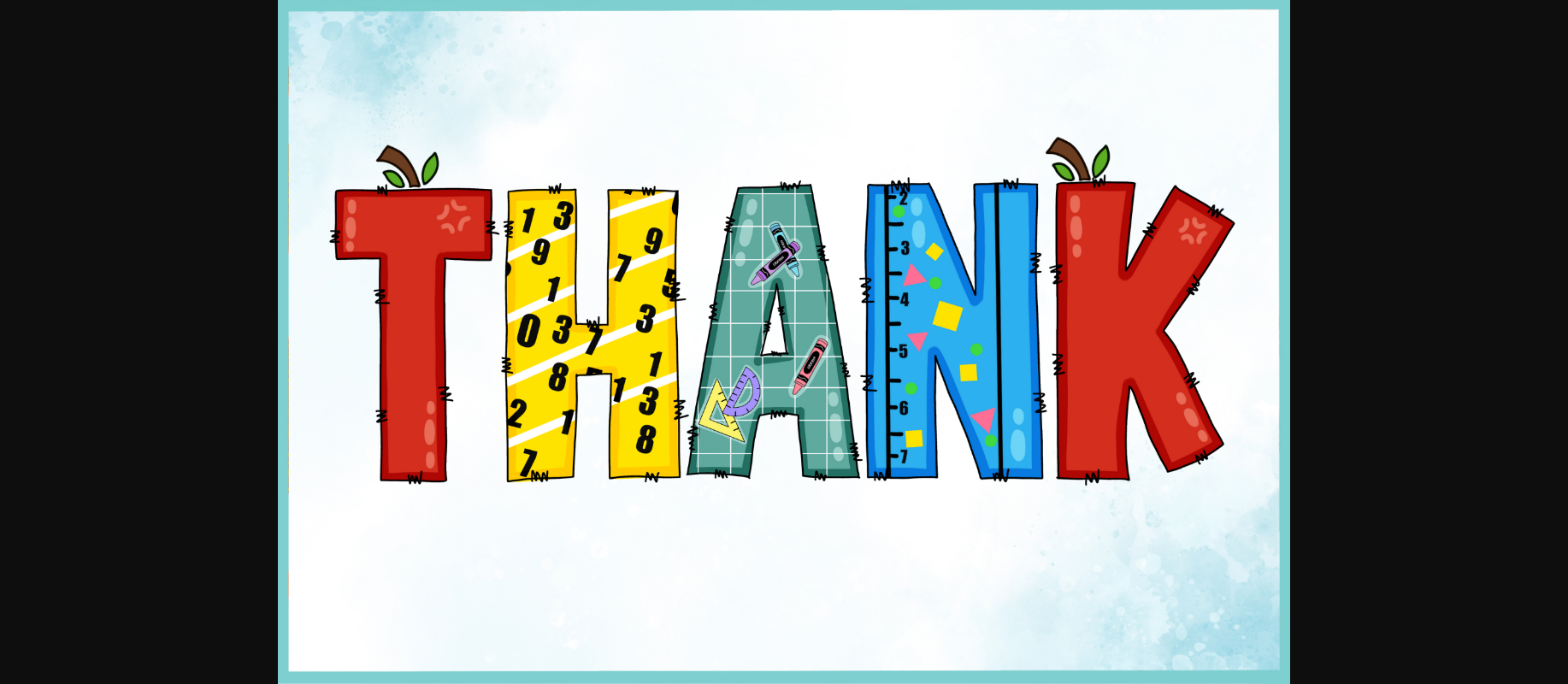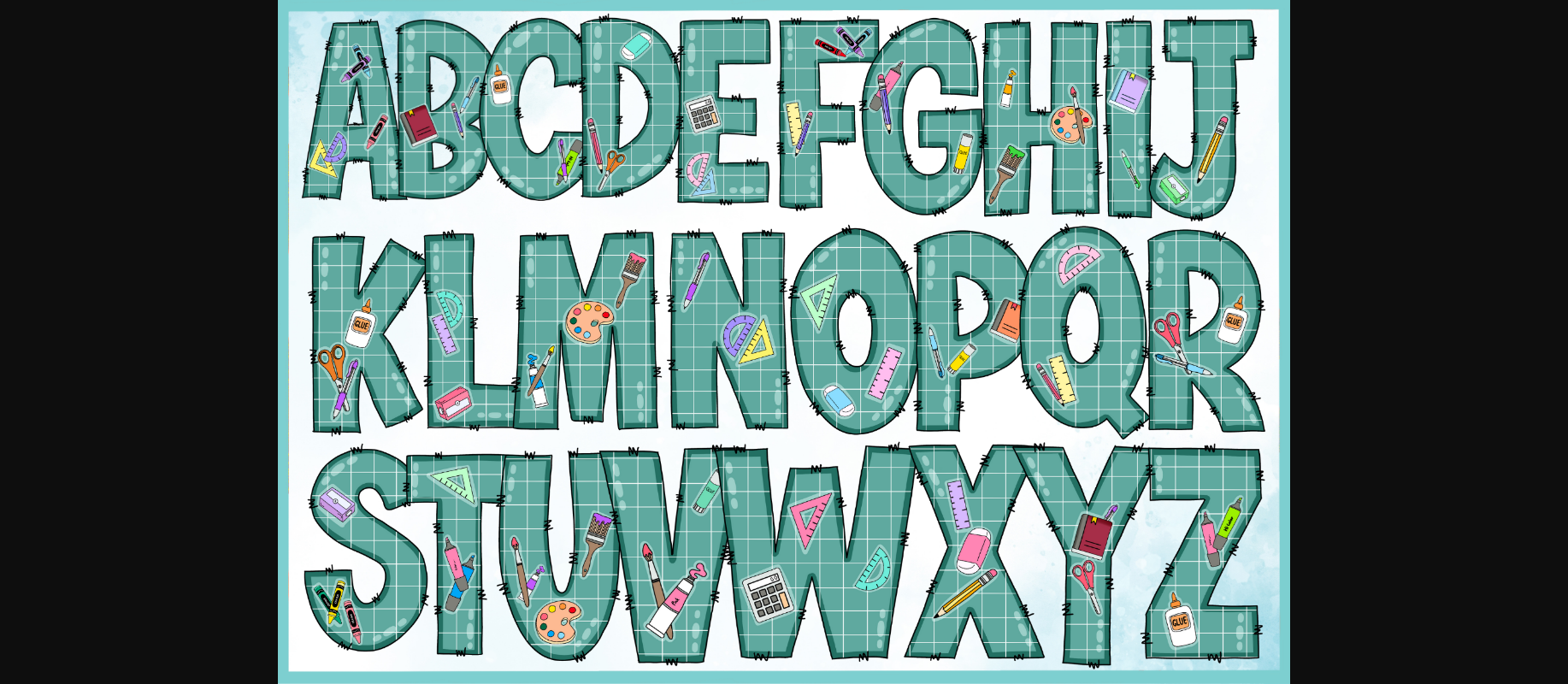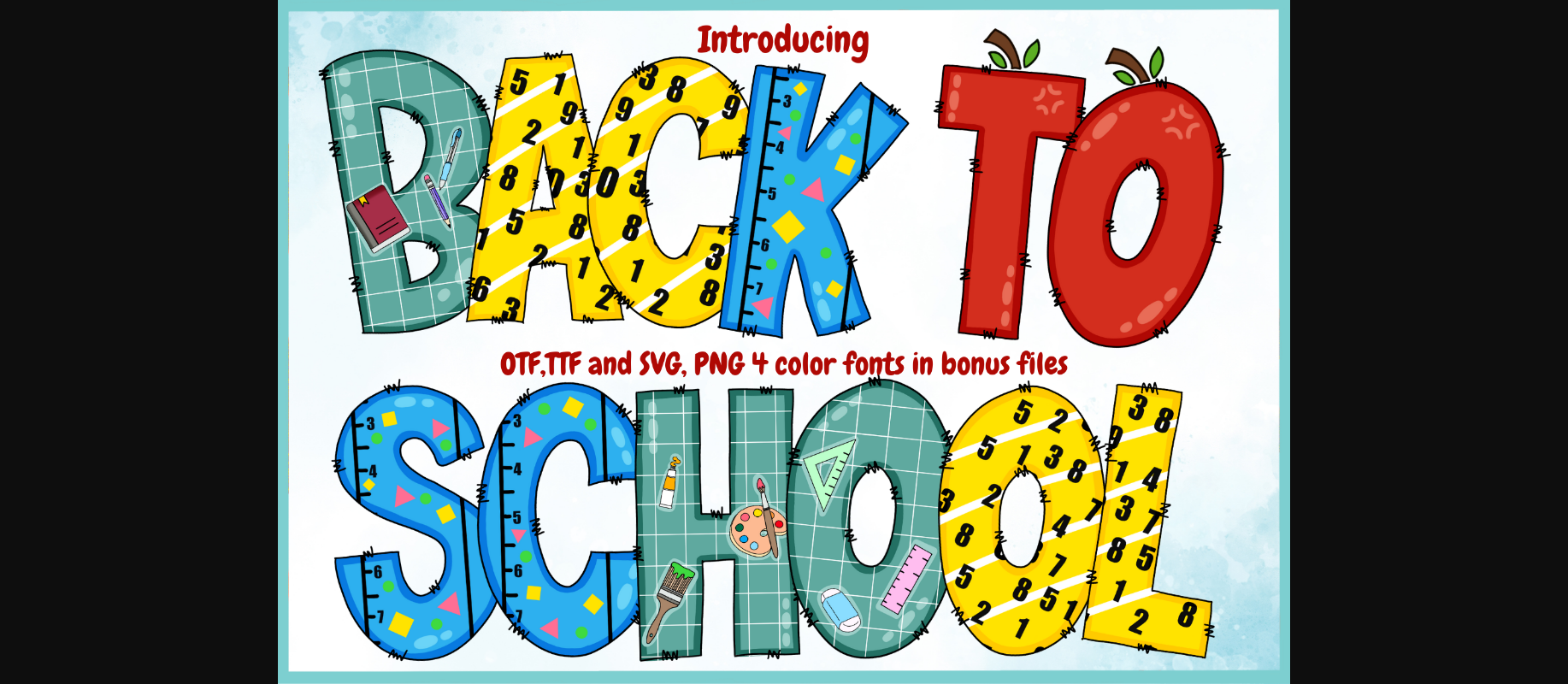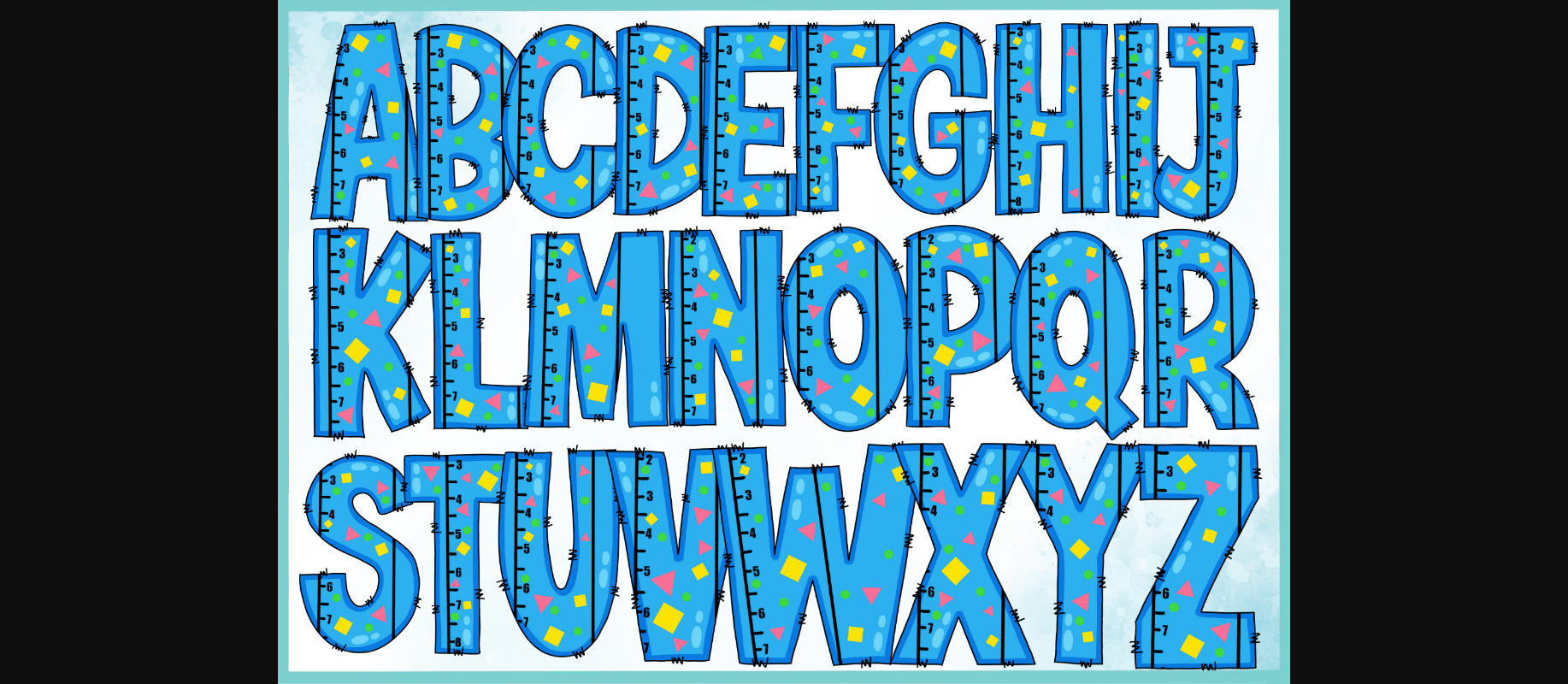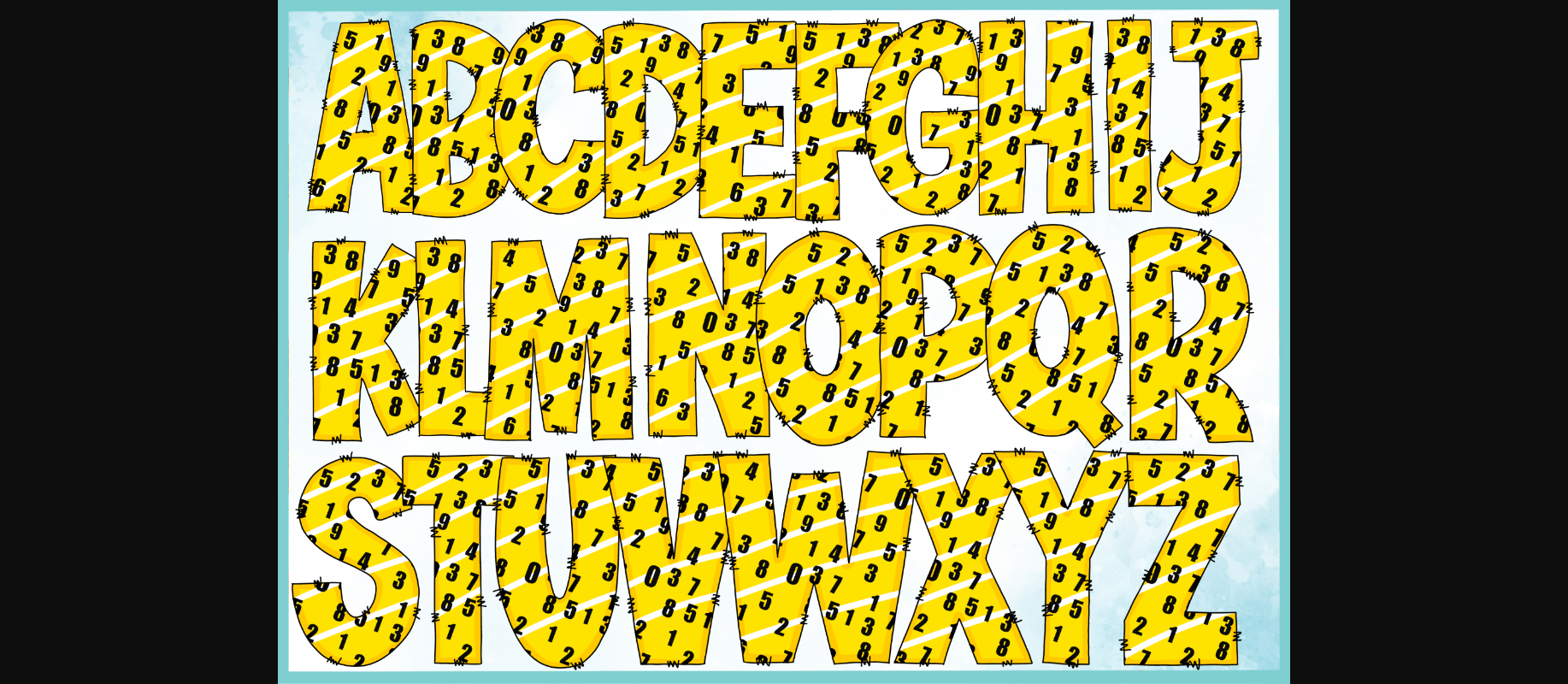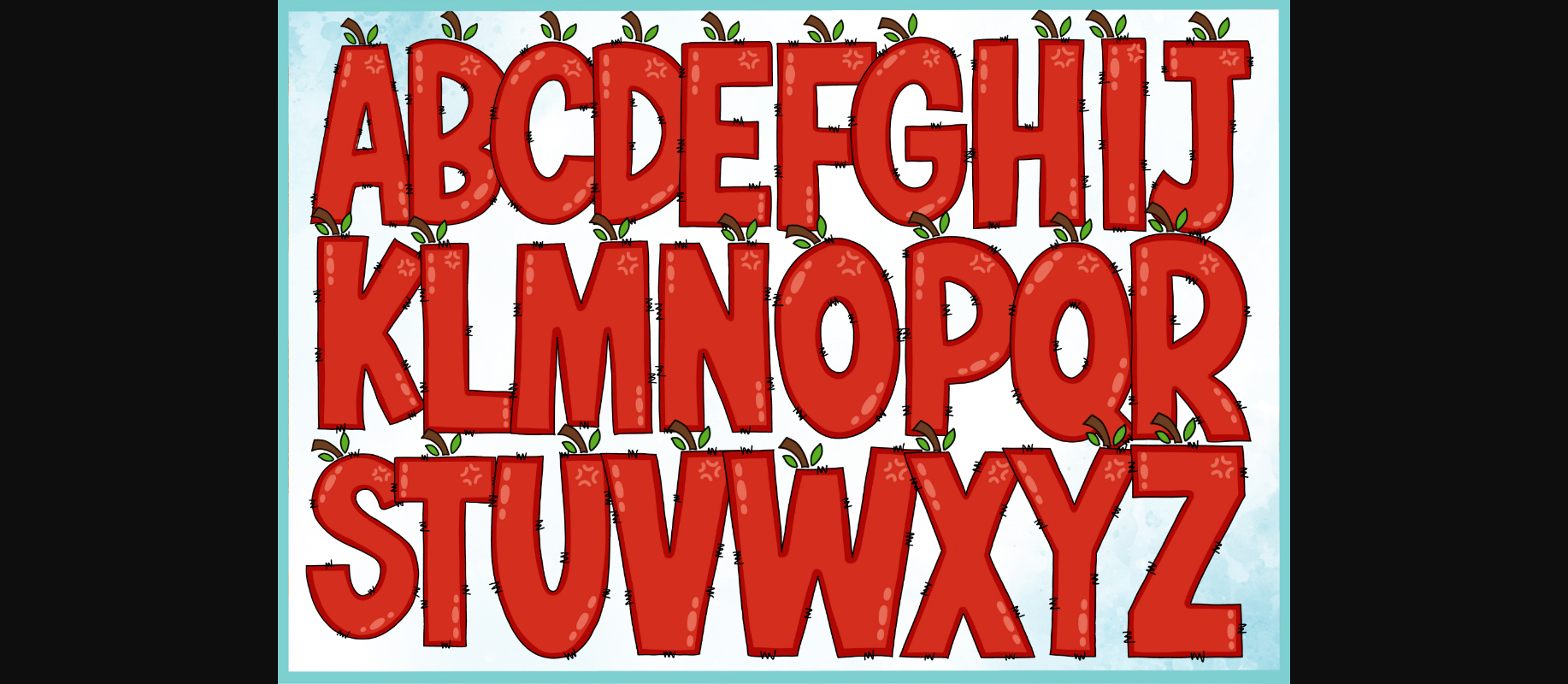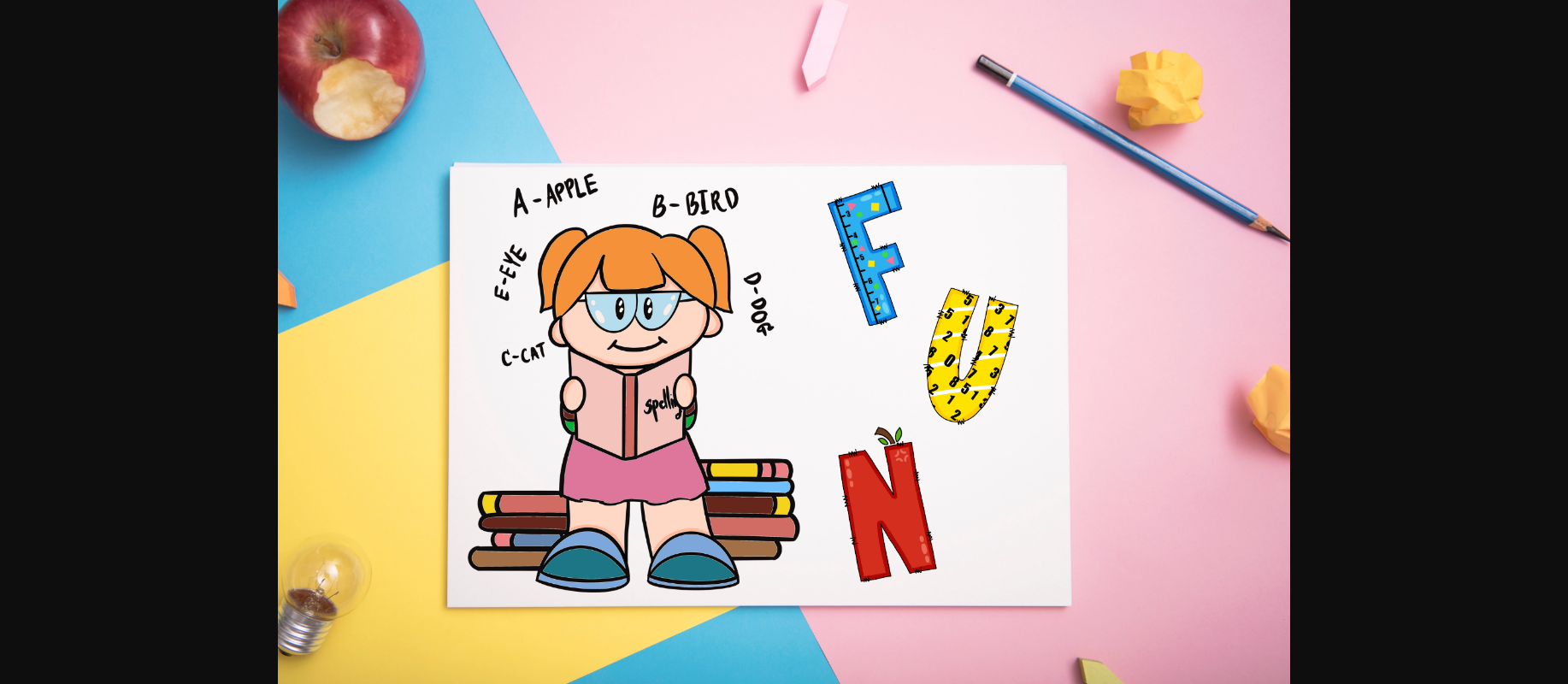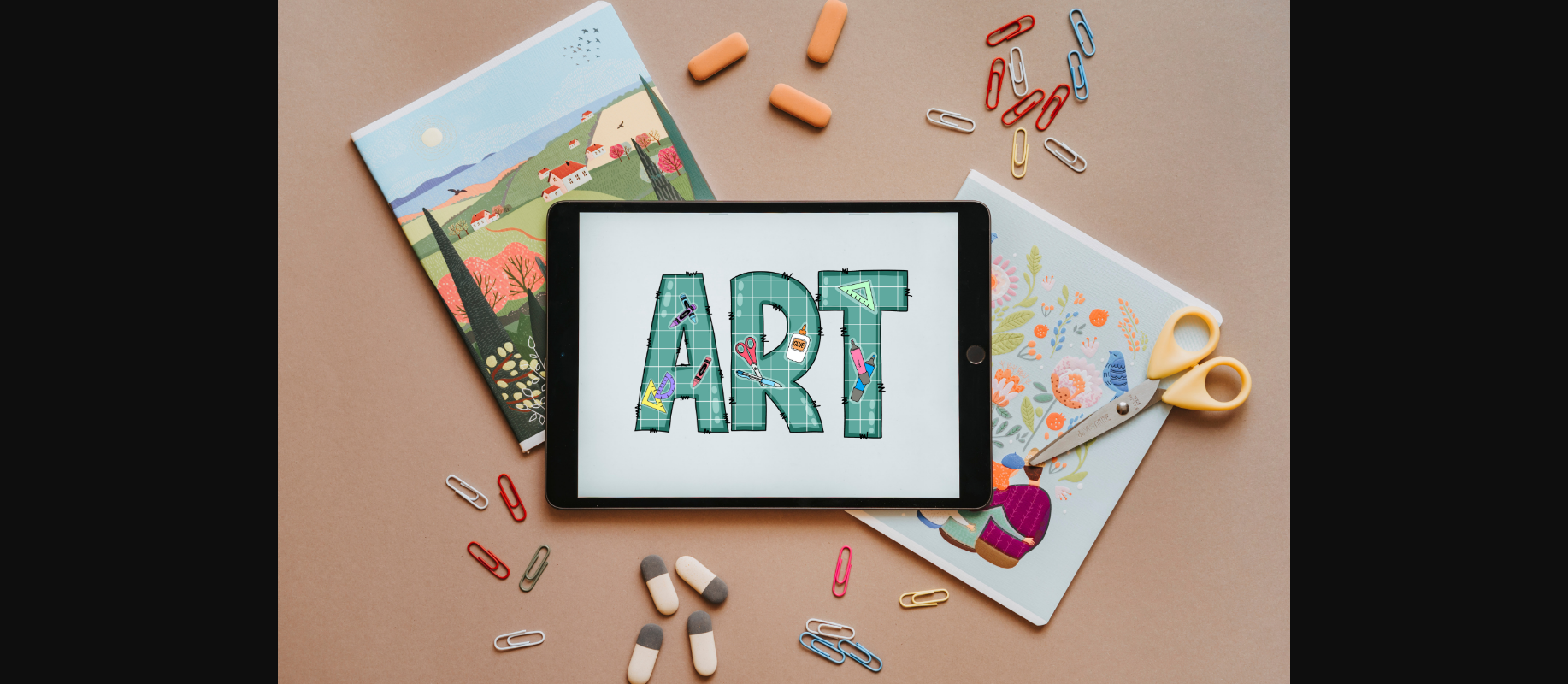
HomeDecorative FontsBack to School Font Decorative Fonts Back to School Font FacebookXPinterestWhatsApp 1 of 11 ... Back to School Font Poster 2... Back to School Font Poster 3... Back to School Font Poster 4... Back to School Font Poster 5... Back to School Font Poster 6... Back to School Font Poster 7... Back to School Font Poster 8... Back to School Font Poster 9... Back to School Font Poster 10... Back to School Font Poster 11... About Back to School Font Back to School is a cute and colorful color font. Use it for projects related to education, advertising, illustration, social media, stickers, clothing and so much more. DOWNLOAD NOW People also explored Girode Font Spiral Font Krypton Font Concertina Banklie Font Black Santa Font Hamsterkids Font Harilly Aleya Quahog BB 361 0 TagsBack to School Font Previous articleCute Donut FontNext articleSunlower Monogram Font LEAVE A REPLY Cancel reply Comment: Please enter your comment! Name:* Please enter your name here Email:* You have entered an incorrect email address! Please enter your email address here Website: Save my name, email, and website in this browser for the next time I comment. Personal Use Free Mallvirra Personal Use Free Read more about this font Consequences Personal Use Free Read more about this font Bollado Personal Use Free Read more about this font Sweety Blue Personal Use Free Read more about this font BLOG How to Install and Use Fonts on Windows, macOS, and Web Projects How to Install and Use Fonts on Windows, macOS, and Web Projects Fonts are a crucial part of design and branding. Whether you’re designing a... 5 Fonts That Will Dominate Design Trends in 2026 Where to Buy American Fonts Online in 2024 Fonts That Capture the Spirit of New York City